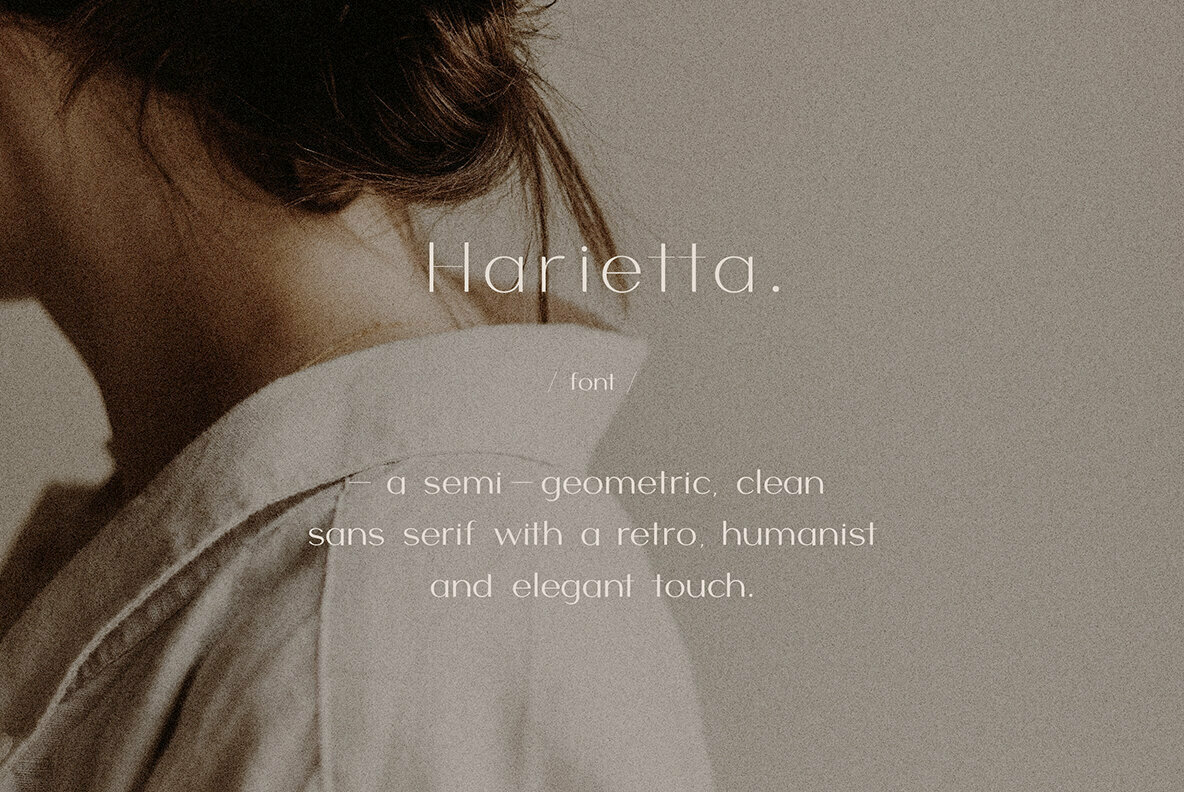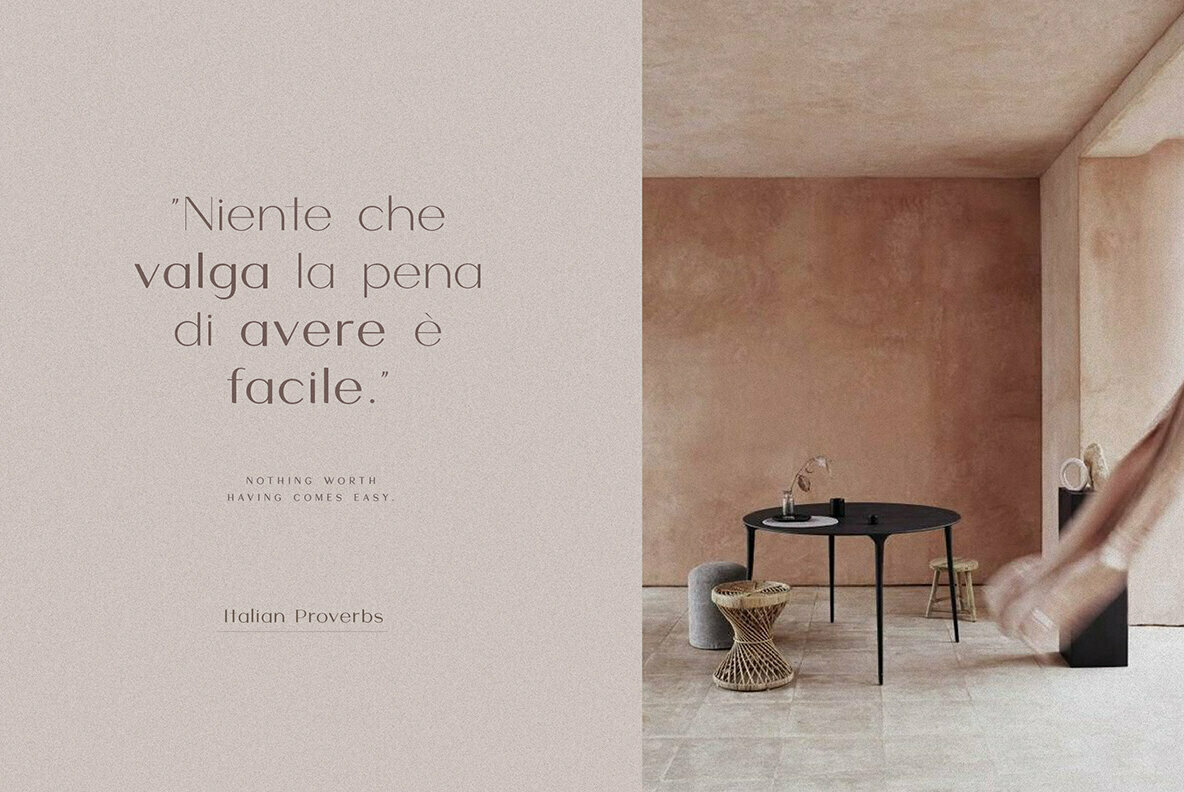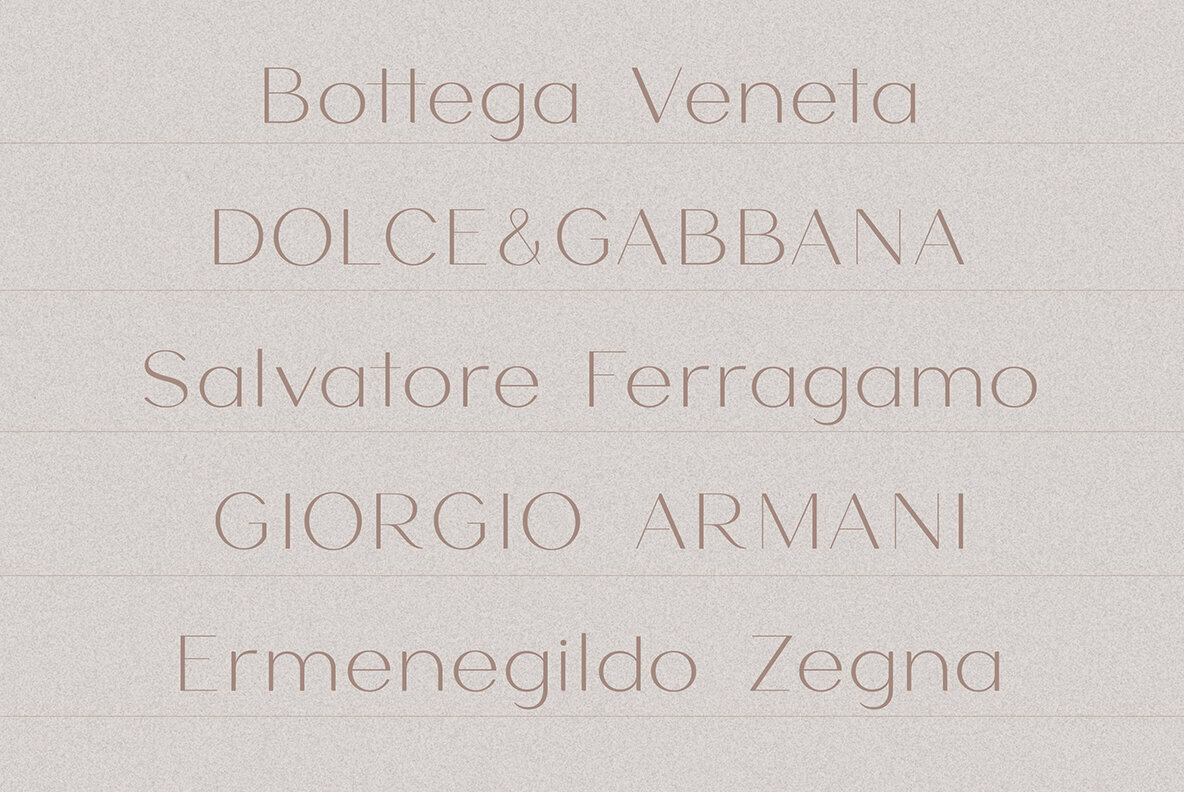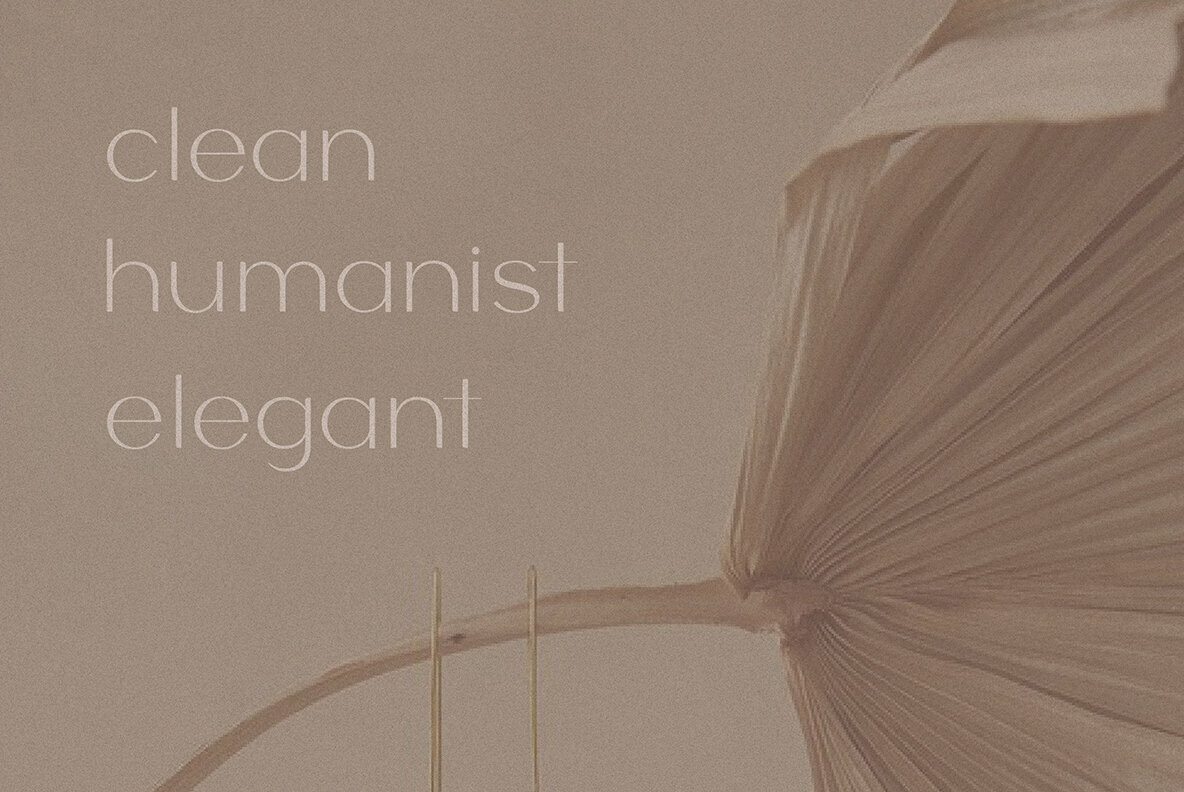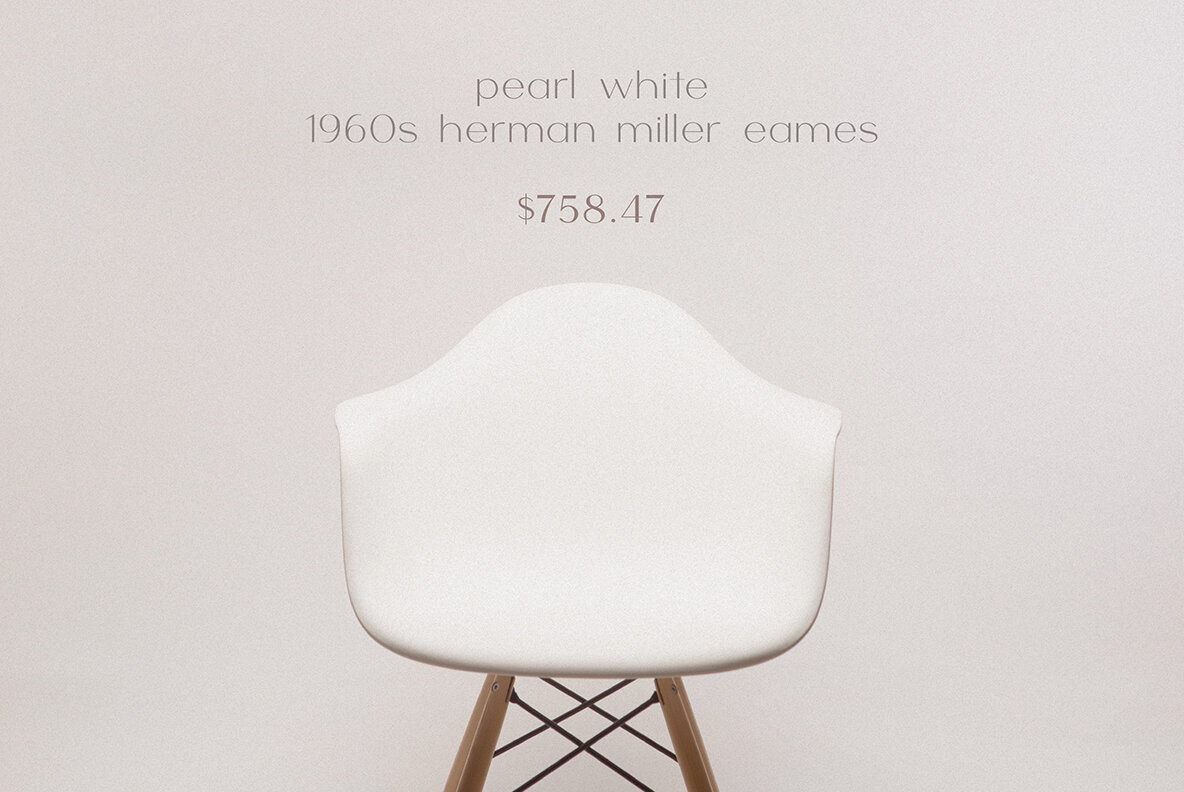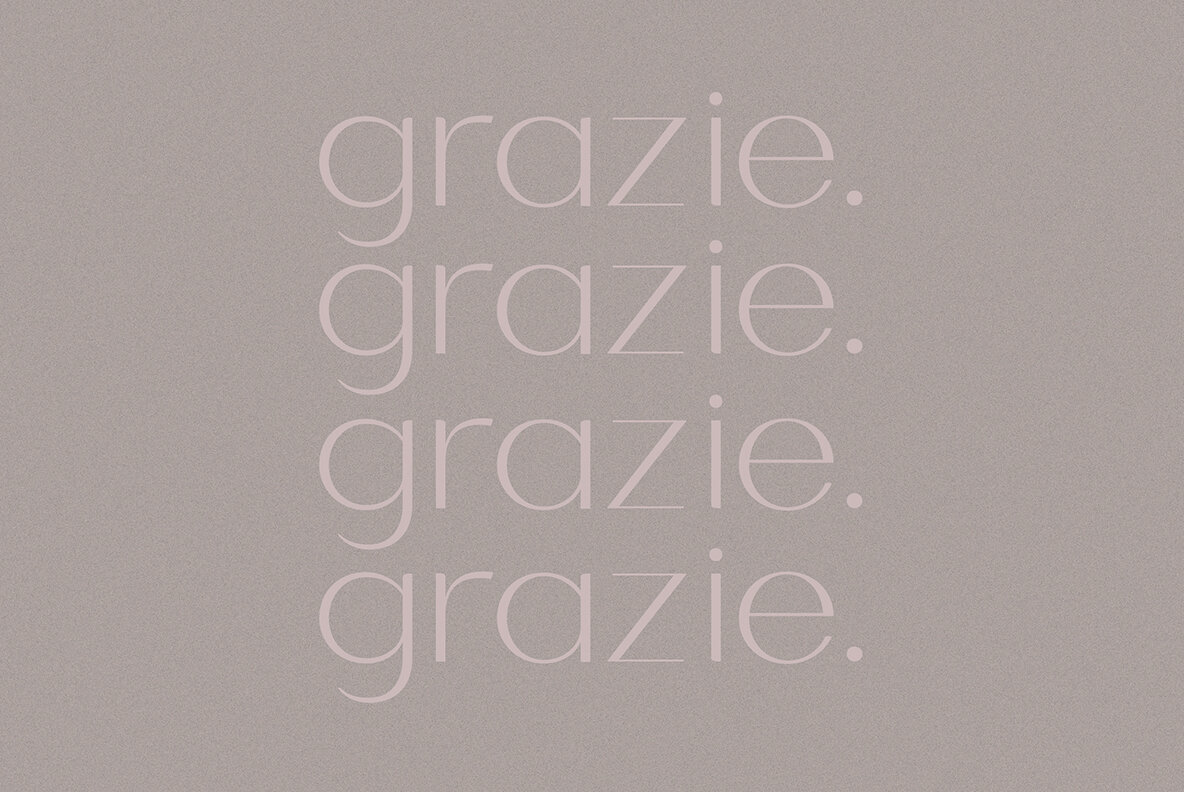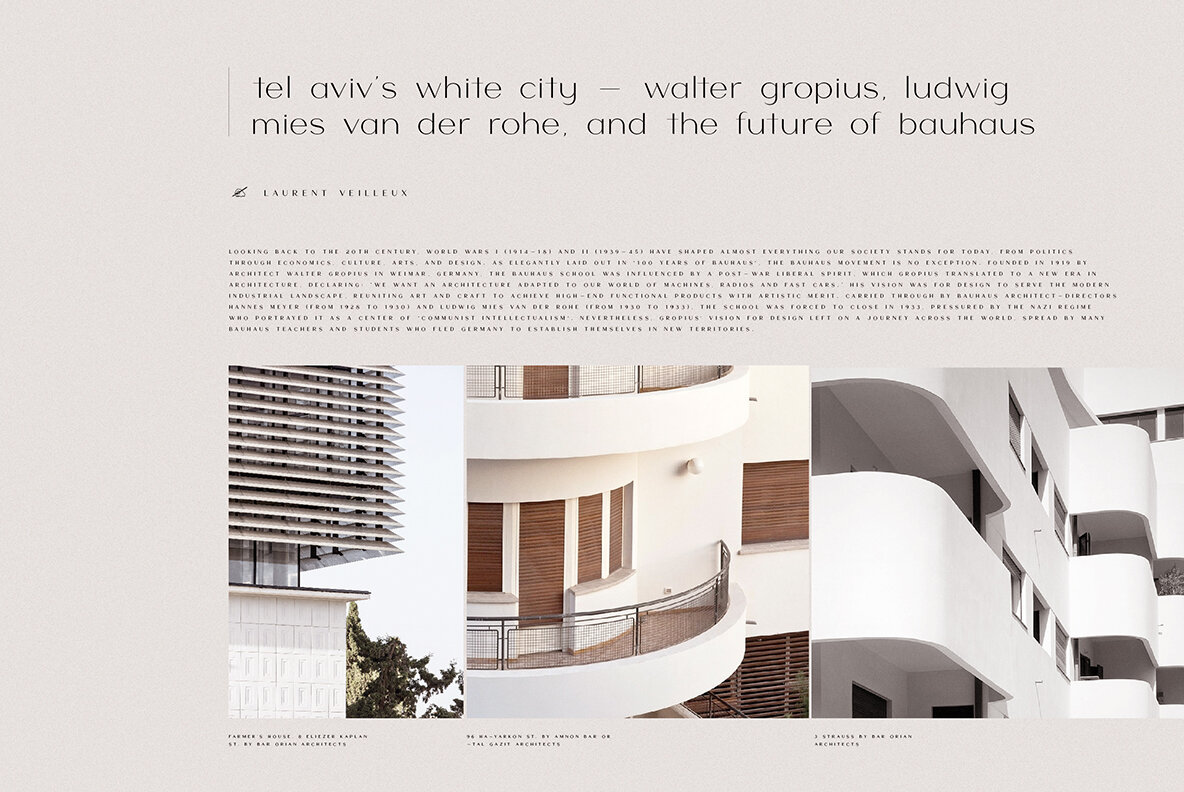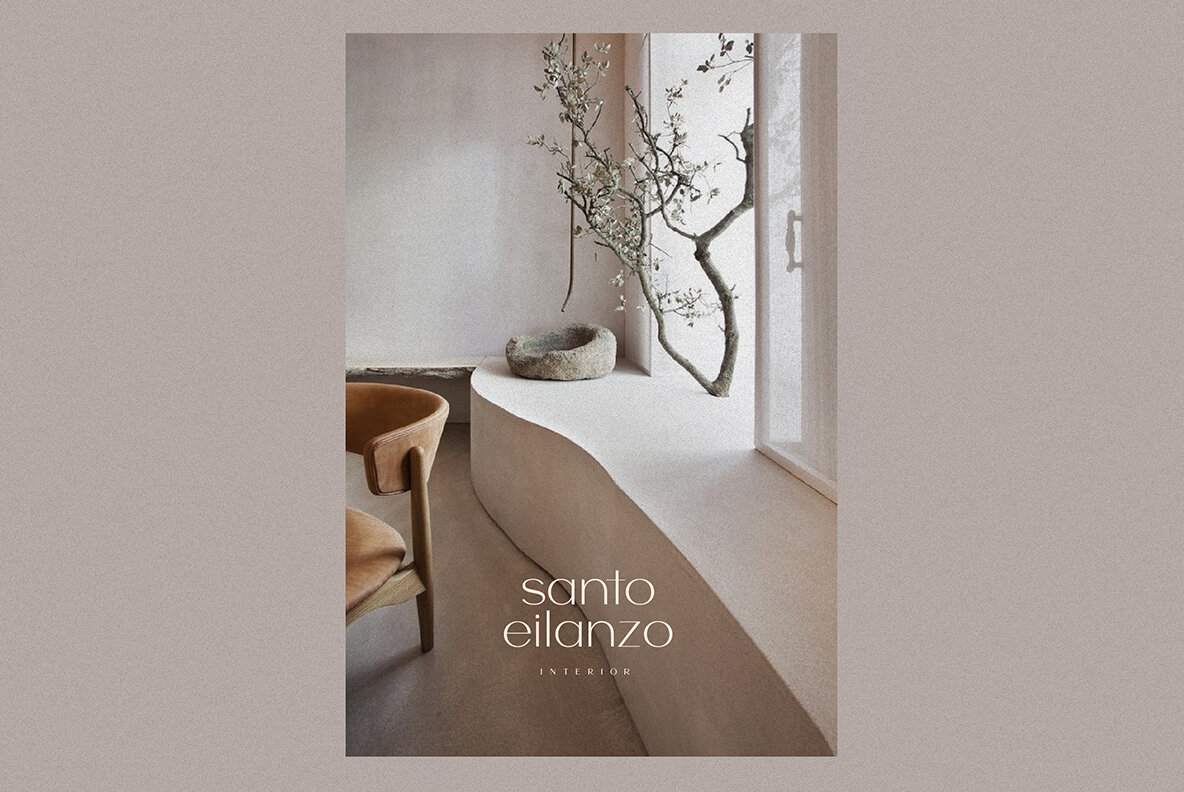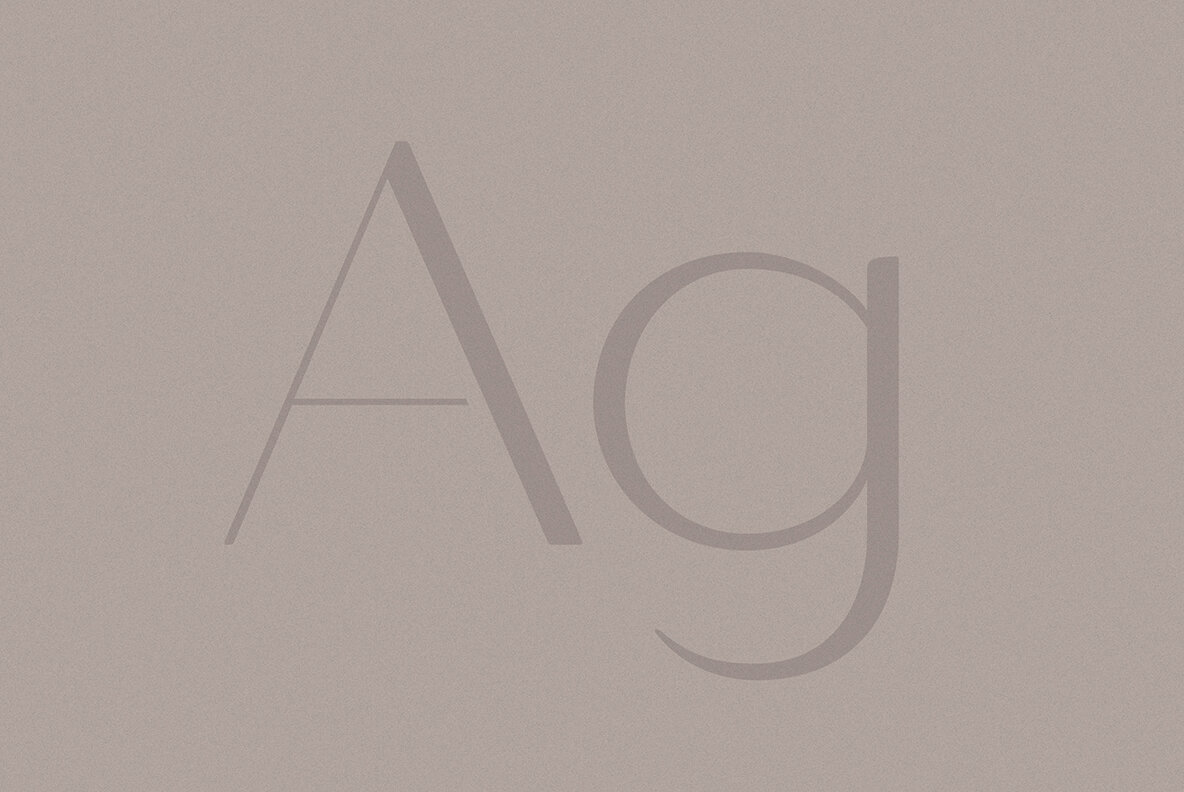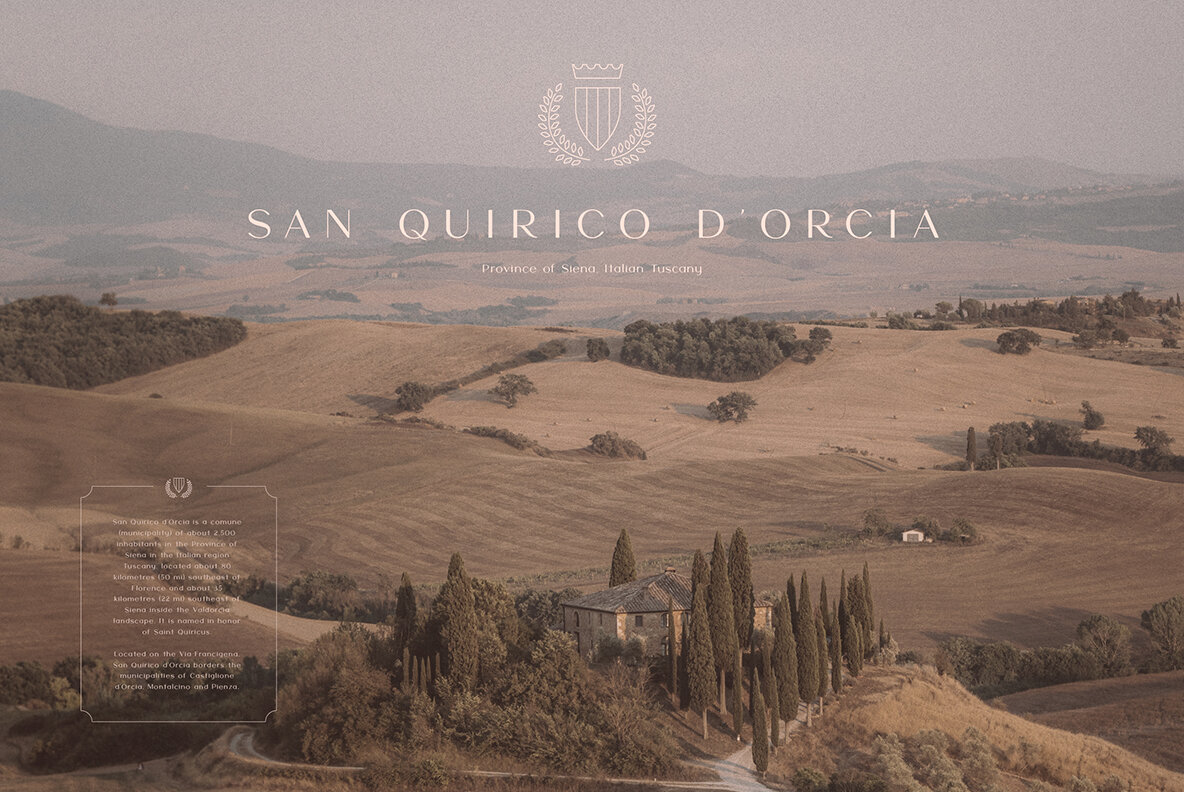
Harietta Font
Harietta stands as a semi-geometric sans serif font that deftly bridges the gap between modern aesthetics and nostalgic allure. Its clean, humanist lines imbue designs with a timeless elegance, making it a fitting choice for projects that require understated sophistication.Harietta: A Clean Sans Serif With Retro Charm